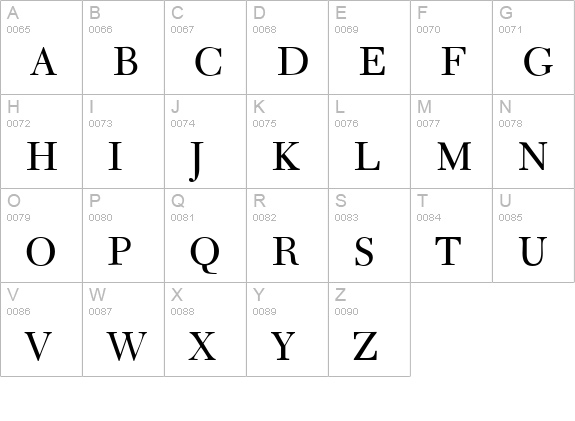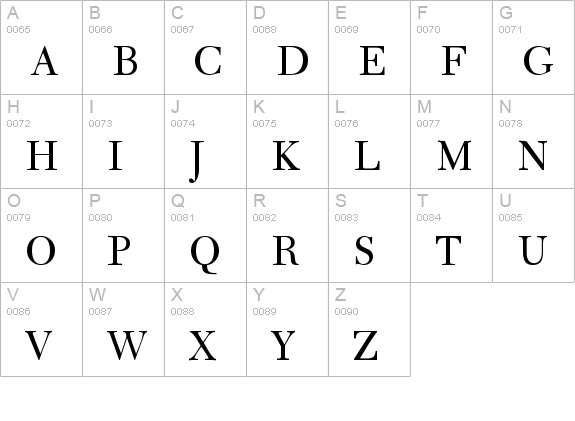
C651-Roman-Regular Font Details
C651-Roman-Regular is the standard, neutral variant in the C651 typeface family \xE2\x80\x94 well suited to general body text, paragraphs, and standard typographic work.
C651-Roman-Regular is a classic, elegant font that exudes a timeless sophistication. Its clean lines and balanced proportions make it versatile and suitable for a wide range of design projects. This font is perfect for conveying a sense of tradition and professionalism while adding a touch of modern flair. One of the best features of C651-Roman-Regular is that it is completely free to download. You can easily access this beautiful font at FontsMarket.com, where you can enhance your creative projects without any cost. Whether you're working on branding, invitations, posters, or any other design project, C651-Roman-Regular is a reliable choice that will elevate your work with its refined aesthetic. Download it now and enjoy the seamless elegance it brings to your designs.